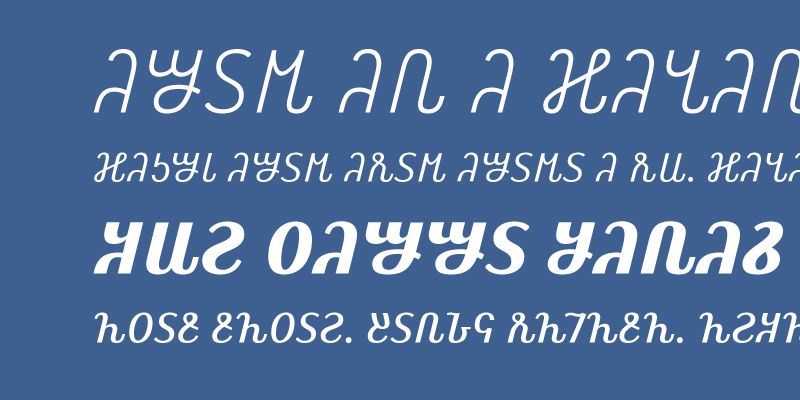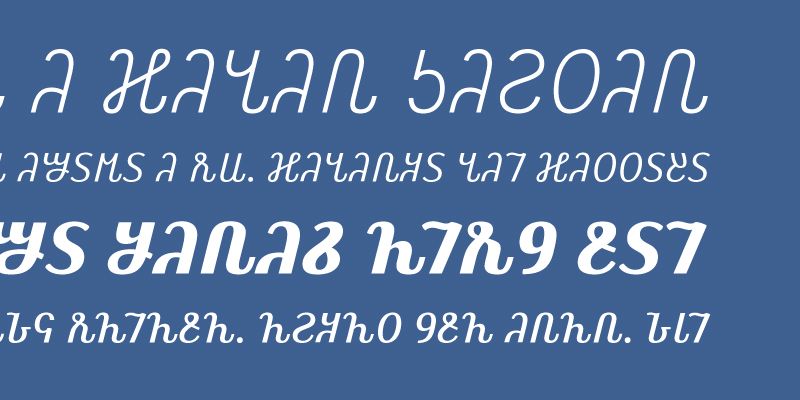
Kigelia Osmanya contains the writing system invented between 1920 and 1922 by Osman Yusuf Kenadid to transcribe the Somali language. It also contains a Basic Latin complement.